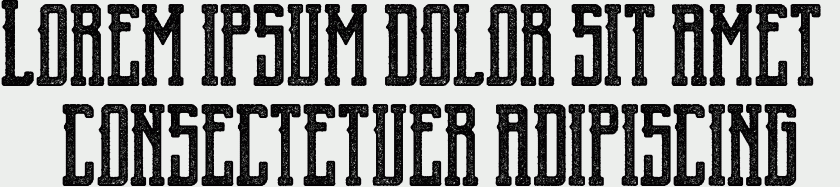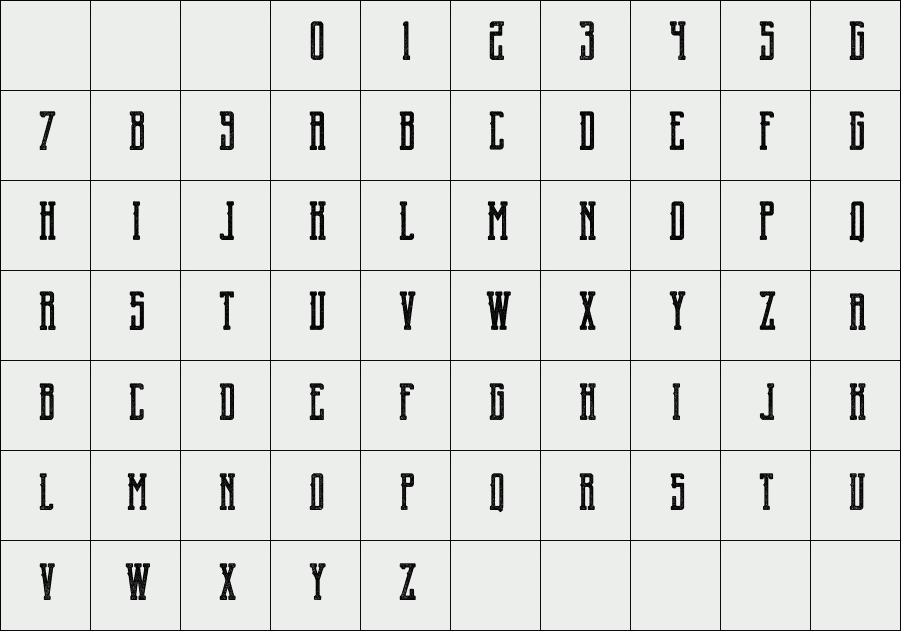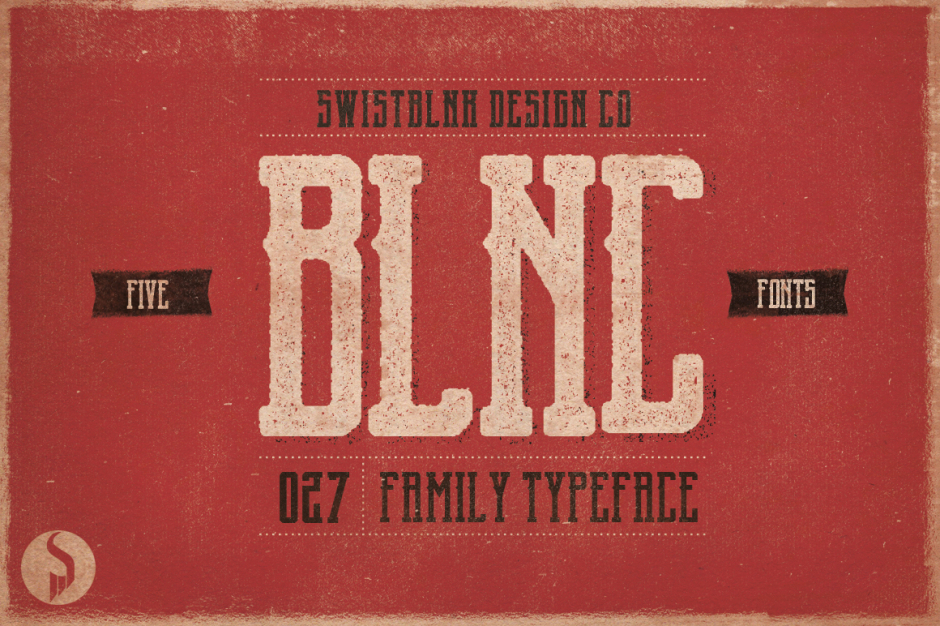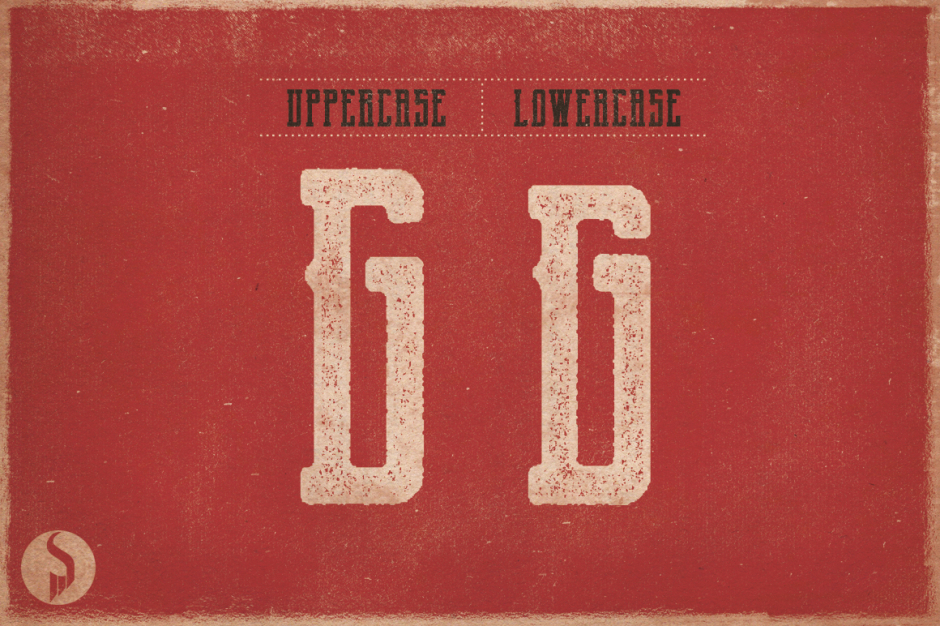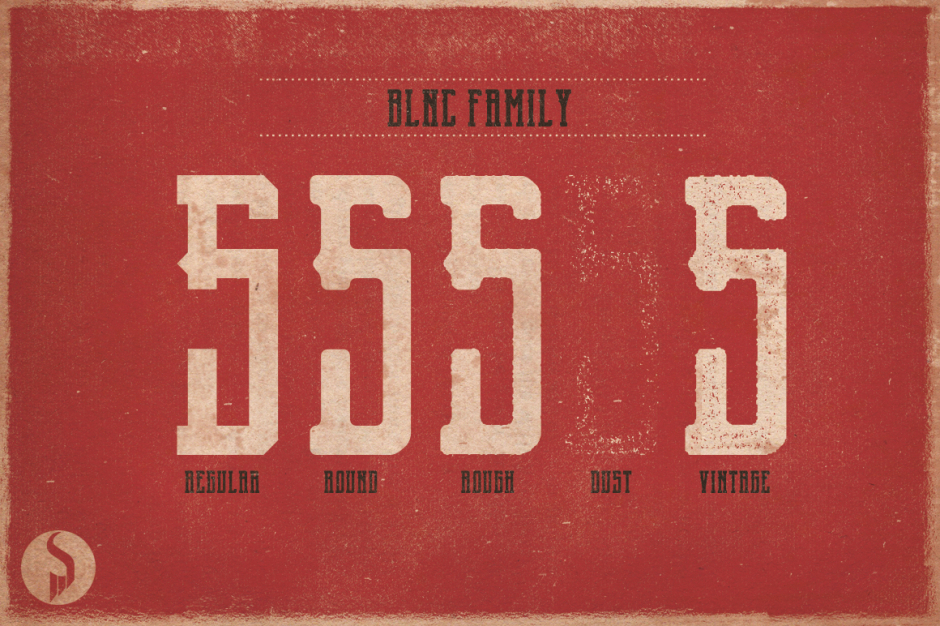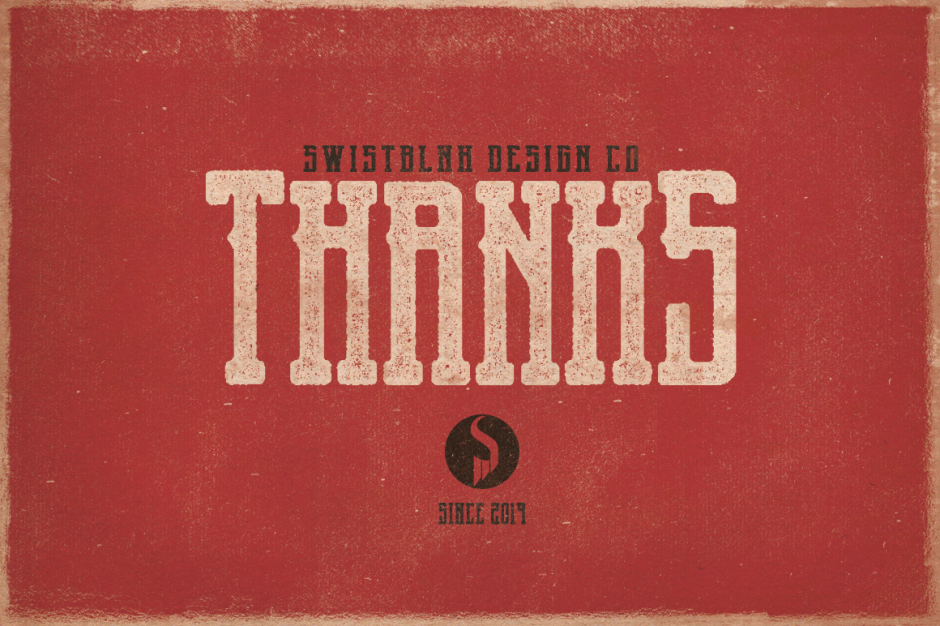
Blnc Family
Blnc inspired by Old Western lettering with some Modern touch. Great for almost all of your designing needs including headline, labels, logo, etc.
If you like Vintage Hand drawn style, Blnc come with vintage style and add some dust to feel more hand drawn.